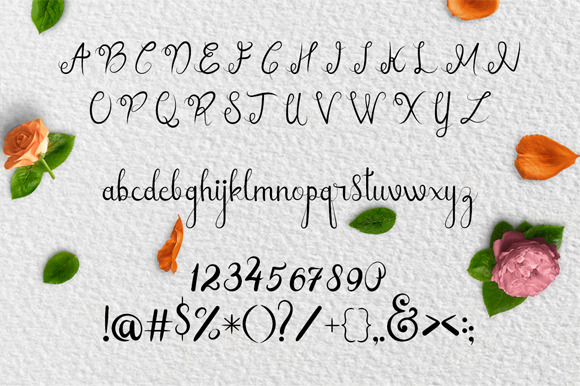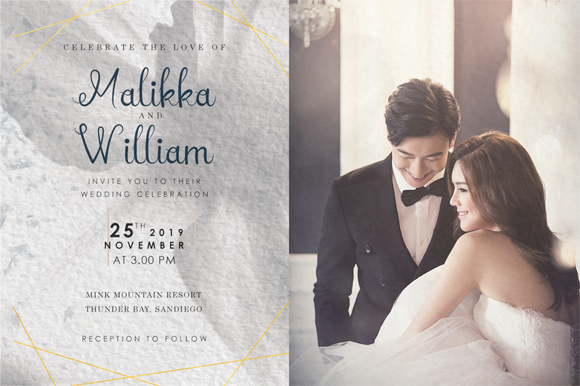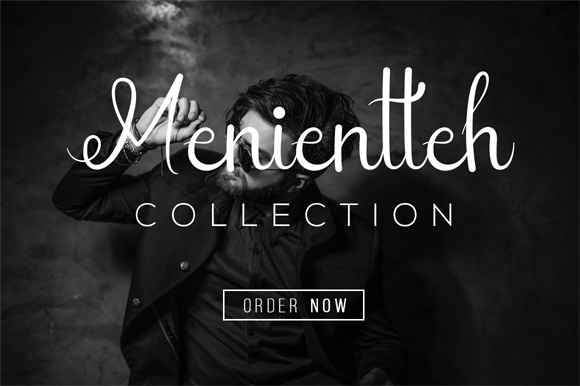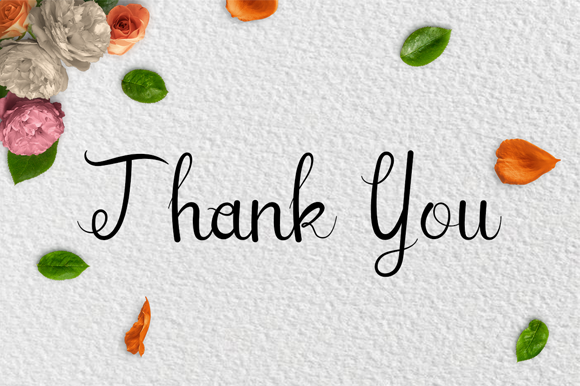
Introduction to Sellebeew Font
Have you ever stared at a blank canvas, struggling to find the perfect font to bring your creative project to life? It’s a moment we’ve all been in – the one where we desperately search for that elusive font that speaks to our vision. And then, like a ray of sunshine, you stumble upon it. For designers, finding the right font can be the difference between a mediocre and a masterpiece. This is where Sellebeew Font comes in – a stunning script font that’s sure to elevate your designs.
With its elegant, high-quality design, Sellebeew Font is the perfect addition to any project. Whether you’re working on a wedding card, a logo, or a social media graphic, this versatile font is sure to add a touch of sophistication. Plus, with its transparent background, you can easily overlay it on any design element, giving you endless possibilities. And the best part? It’s available for free download, making it an invaluable resource for designers of all levels.
Key Features of Sellebeew Font
- High-quality, vector-based design suitable for various creative projects.
- Includes a range of glyphs and characters, making it ideal for use in logos, typography, and other design elements.
- Designed with a unique, modern aesthetic, the Sellebeew Font is perfect for adding a touch of creativity to any project.
Honest Review: Sellebeew Font
However, there are a few limitations to consider. The font doesn’t come in a wide range of weights, which may limit its use in certain projects. Additionally, the font’s design may not be suitable for all types of content, such as body text.
- ⚠️ Limited range of weights
- ⚠️ May not be suitable for body text
Getting the Most Out of Sellebeew Font